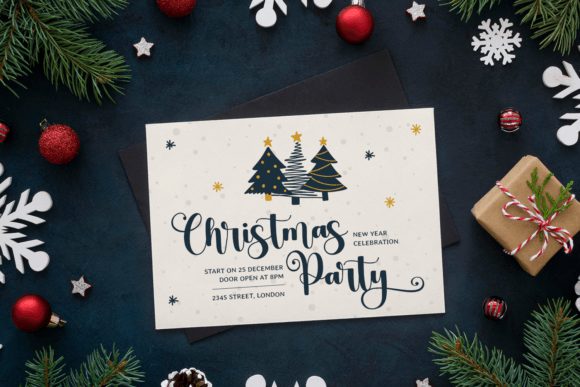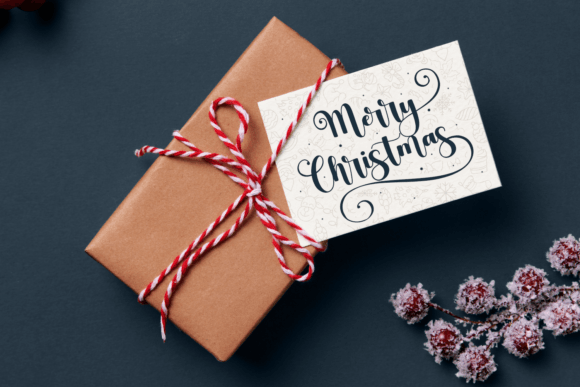
Twinkle Christmas Font
Twinkle Christmas is a delightful script font that sparkles with festive charm and elegance. Featuring a quirky handwritten style with smooth monoline strokes, this font is perfect for capturing the joy and magic of the holiday season. Designed with Christmas, New Year, winter, Easter, Thanksgiving, Cricut, embroidery, and craft projects in mind, it effortlessly brings a warm and celebratory feel to any design.